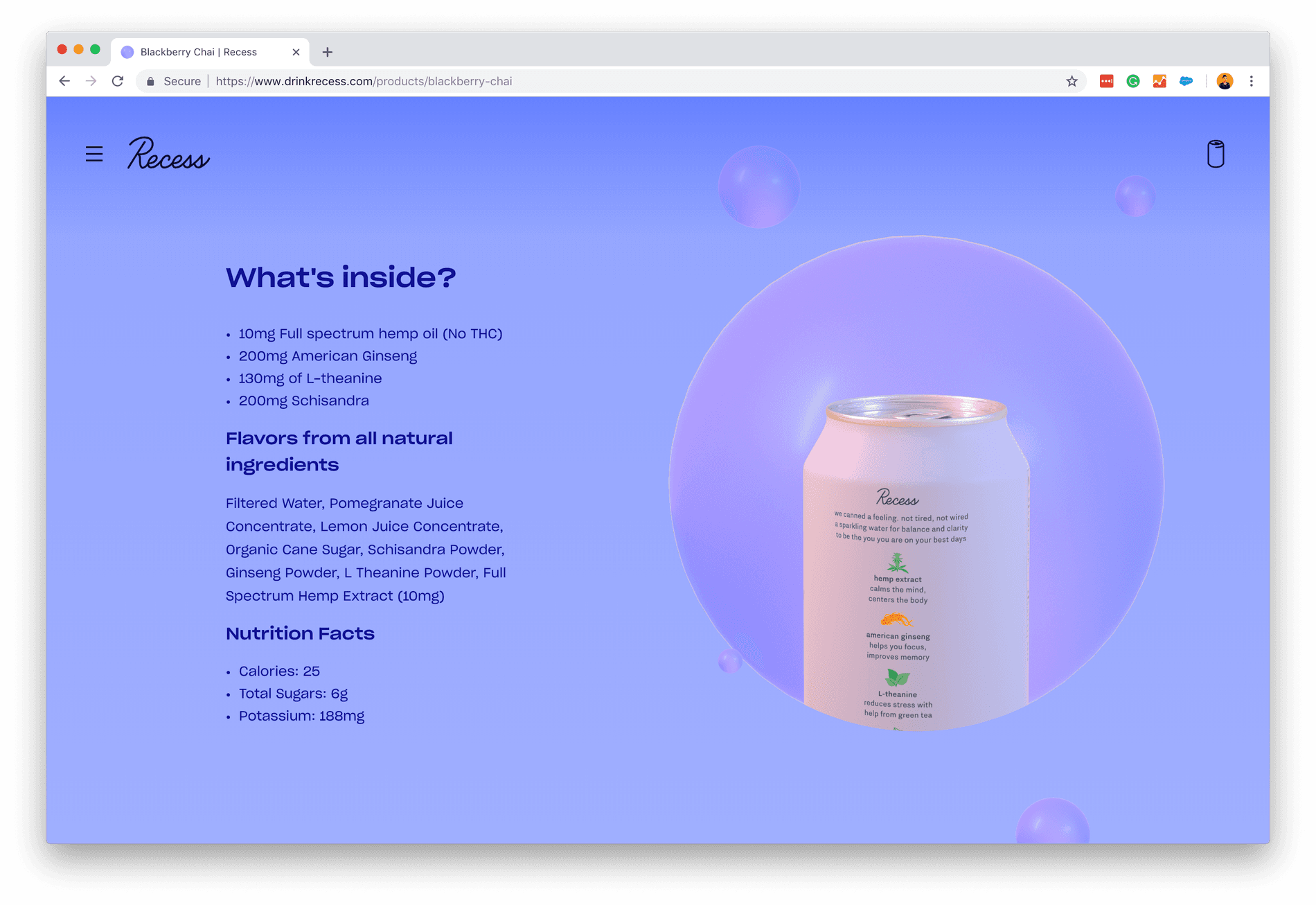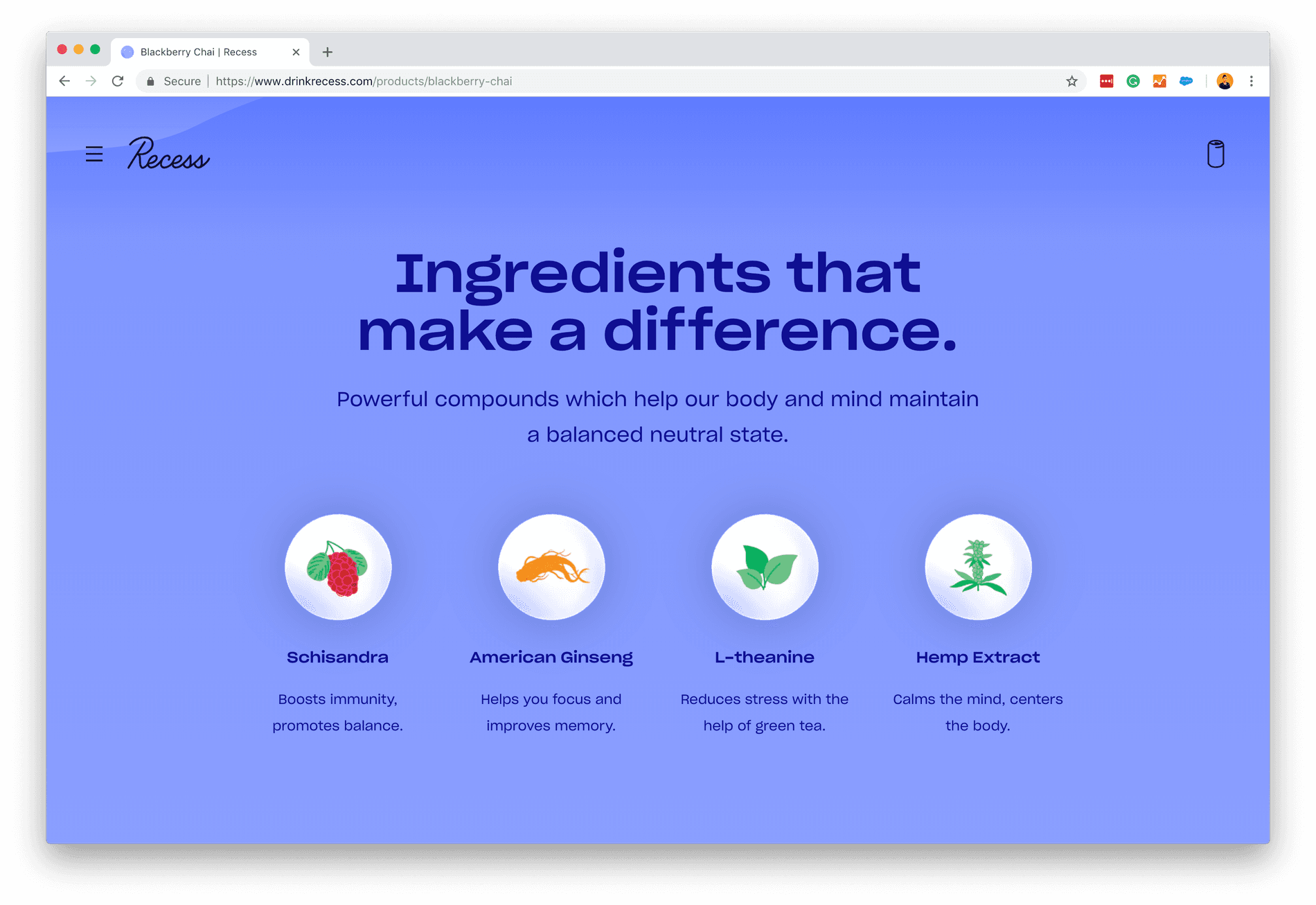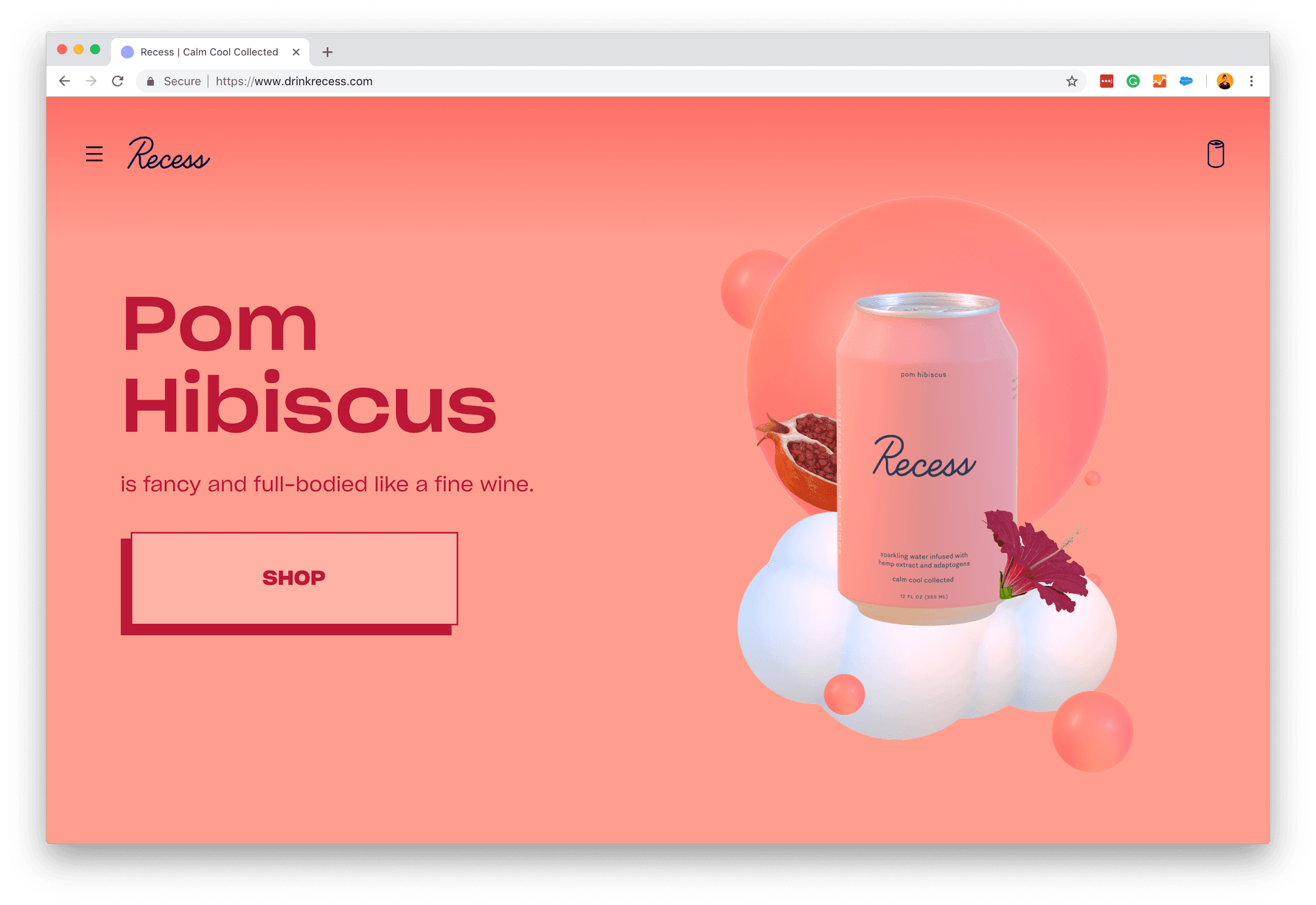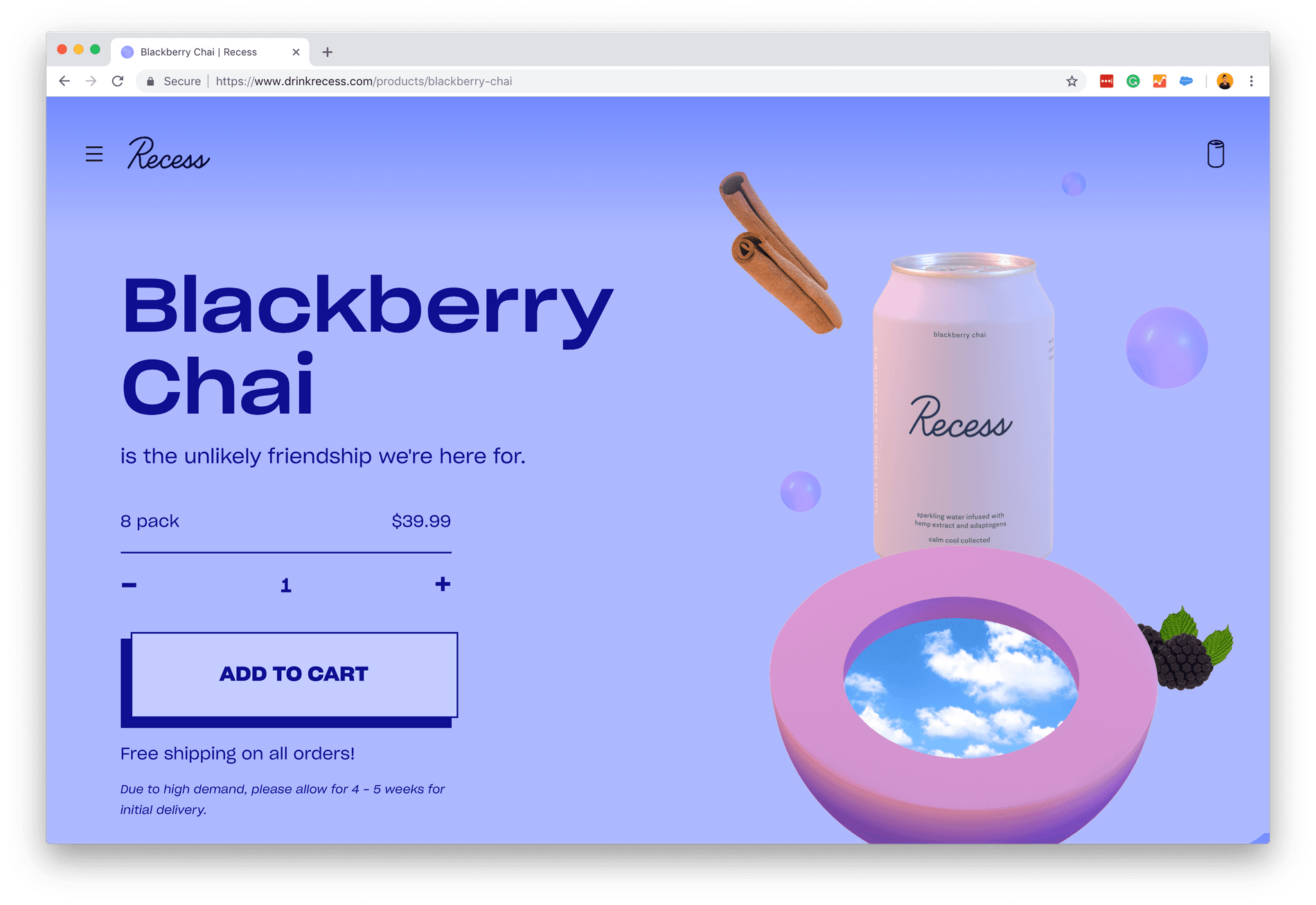
The movement to legalize cannabis in the USA has created a wave of business opportunities for "budding" entrepreneurs. One such startup is Recess, a new, beautifully-designed "sparkling water infused with hemp extract and adaptogens for balance and clarity." The boutique brand agency, Day Job, founded by our close friends, designed the company's brand identity with a dreamy elegance, using our typeface Sharp Grotesk throughout Recess' website, and product packaging.
Typeface: Sharp Grotesk